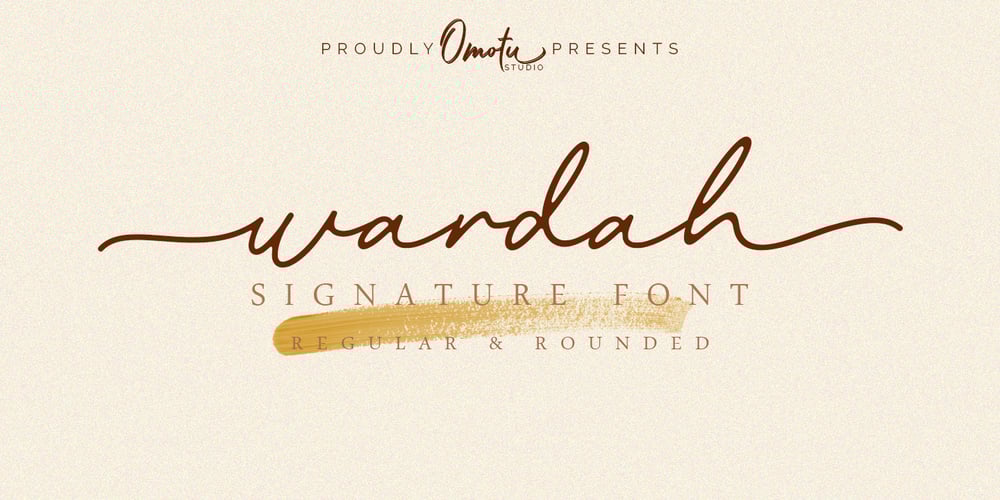
Wardah Font Family was designed by Ibnu Utomo and published by Omotu. Wardah contains 2 styles and family package options. Wardah! A handwrittent signature font. Comes with two styles, regular and rounded. Wardah font is suitable for branding, logotype, apparel, T-shirt, Hoodie, product packaging, quotes, flyer, poster, book cover, advertising, etc.Whats Include? Opentype support Multilingual support PUA encoded Features: Uppercase, lowercase, numerals, punctuations, stylistic sets, alternate, and ligatures Accessible in the Adobe Illustrator Glyphs panel, or under Stylistic Alternates in the Adobe Photoshop OpenType menu, Adobe InDesign, Corel Draw, even work on Microsoft Word Please message me if you’re unsure of any language support.Thanks for looking, and I hope you enjoy it! Please don’t hesitate to drop me a message if you have any issues or queries.